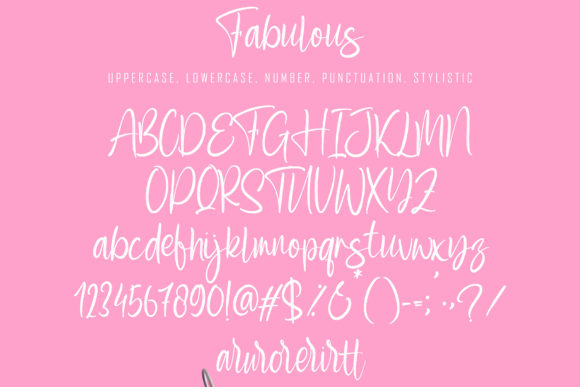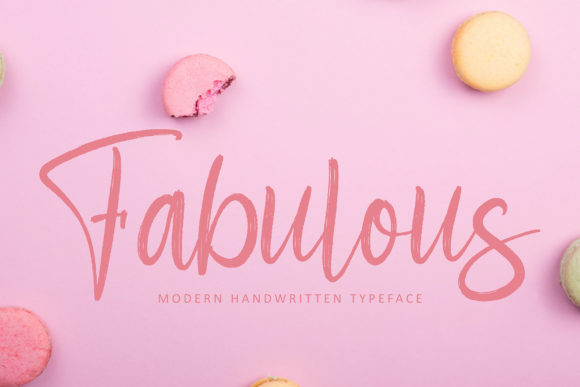
Fabulous Font: Elevate Your Designs with Elegance and Sophistication
In the world of typography, fonts play a crucial role in conveying the tone and personality of a design. Among the numerous font styles available, script fonts have always been a popular choice for designers and crafters looking to add a touch of elegance and sophistication to their creations. One such font that has been making waves in the design community is the Fabulous Font. In this article, we’ll delve into the features and benefits of this stunning font and explore how you can use it to take your designs to the next level.
What is Fabulous Font?
Fabulous is a thin lettered and graceful script font that exudes refinement and luxury. Its ravishing style is sure to captivate your audience and leave a lasting impression. With its delicate and flowing lines, Fabulous Font is perfect for creating designs that require a touch of sophistication and glamour.
Key Features of Fabulous Font
- Thin Lettering: Fabulous Font features thin lettering that gives it a light and airy feel. This makes it ideal for designs where you want to convey a sense of elegance and refinement.
- Graceful Script: The font’s script style is characterized by flowing lines and curves that give it a beautiful, hand-written look.
- High Versatility: Fabulous Font can be used for a wide range of design projects, from wedding invitations and stationery to social media posts and more.
Use Cases for Fabulous Font
Fabulous Font is an incredibly versatile font that can be used for various design projects. Here are some ideas to get you started:
- Wedding Invitations: Create stunning wedding invitations that set the tone for a luxurious and memorable event.
- Stationery Art: Use Fabulous Font to create beautiful stationery art, including greeting cards, thank-you cards, and more.
- Social Media Posts: Add a touch of elegance to your social media posts and make them stand out from the crowd.
- Branding and Packaging: Use Fabulous Font to create a sophisticated brand identity and packaging design that reflects your brand’s values and personality.
Tips for Using Fabulous Font
To get the most out of Fabulous Font, here are some tips to keep in mind:
- Pair it with Bold Fonts: Pair Fabulous Font with bold fonts to create a striking contrast that adds visual interest to your design.
- Use it for Headings: Use Fabulous Font for headings and titles to add a touch of elegance and sophistication to your design.
- Experiment with Colors: Experiment with different colors and textures to add depth and visual interest to your design.
In conclusion, Fabulous Font is a stunning script font that can elevate your designs with its elegance and sophistication. With its thin lettering and graceful script style, it’s perfect for creating designs that require a touch of luxury and refinement. Whether you’re a designer or crafter, Fabulous Font is an excellent addition to your font library. So why wait? Fall for its ravishing style and use it to create gorgeous wedding invitations, beautiful stationery art, eye-catching social media posts, and much more!